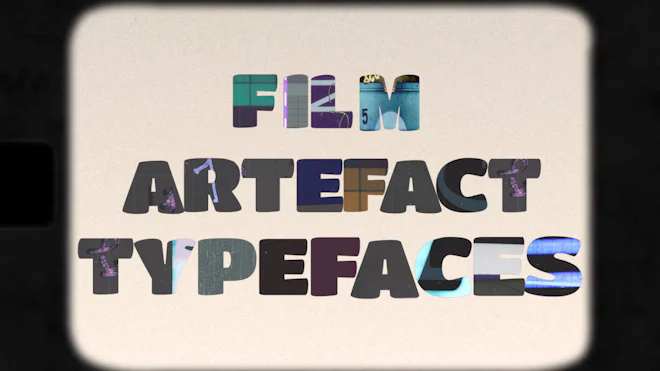
This stock motion graphics video pack includes 51 different clips of film artefact typefaces - letters, numbers, and symbols on a transparent alpha channel.